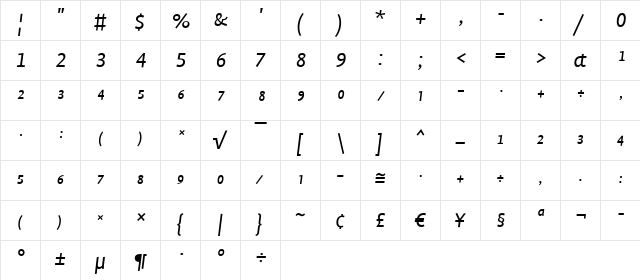
ProfileNO Regular Italic
| Foundry | by Martin Wenzel, published by FontShop International for the FontFont library. Profile is a trademark of FSI, Fonts and Software GmbH,http://www.fontfont.de |
Design Context for ProfileNO Typeface
ProfileNO takes a measured approach to typography — its balanced proportions and neutral character make it a reliable workhorse for both digital and print work. The dynamic lean of this cut emphasises speed and emphasis in any layout.
Pro Tip: Try ProfileNO for annotation and caption copy alongside an upright companion — the contrast in angle creates a dynamic but ordered typographic system.